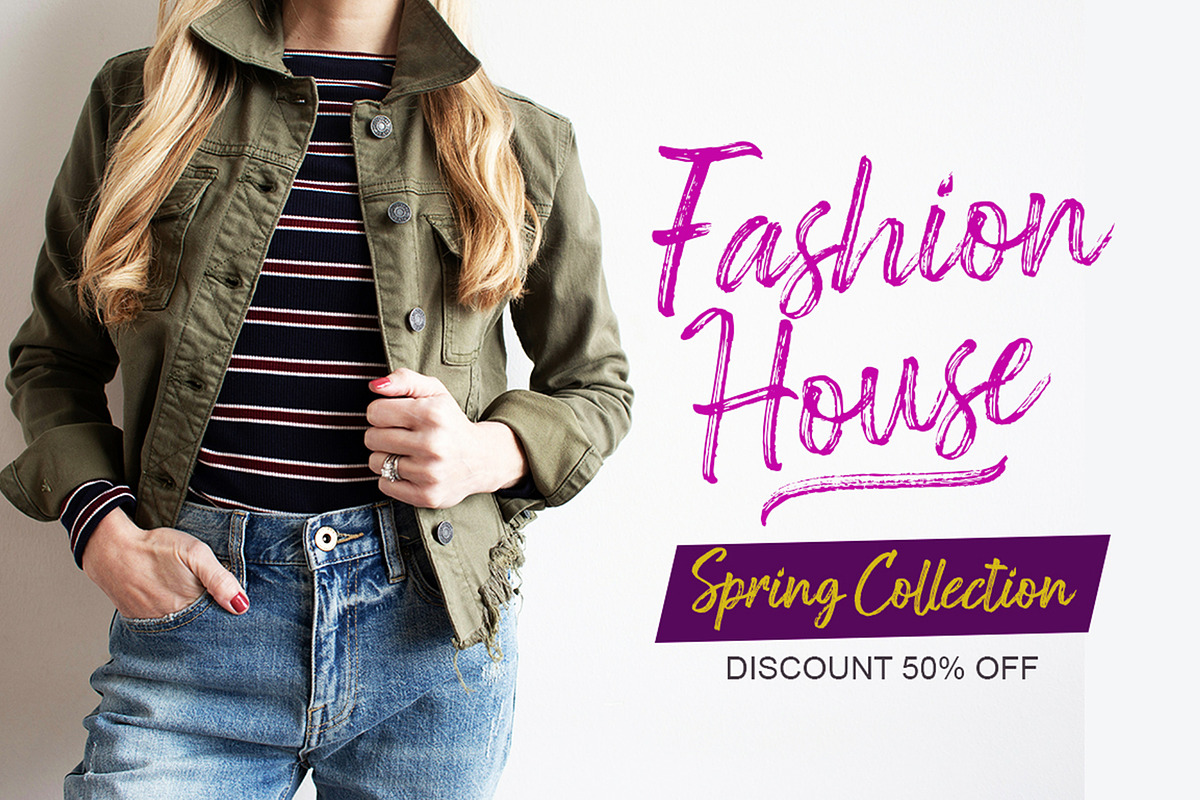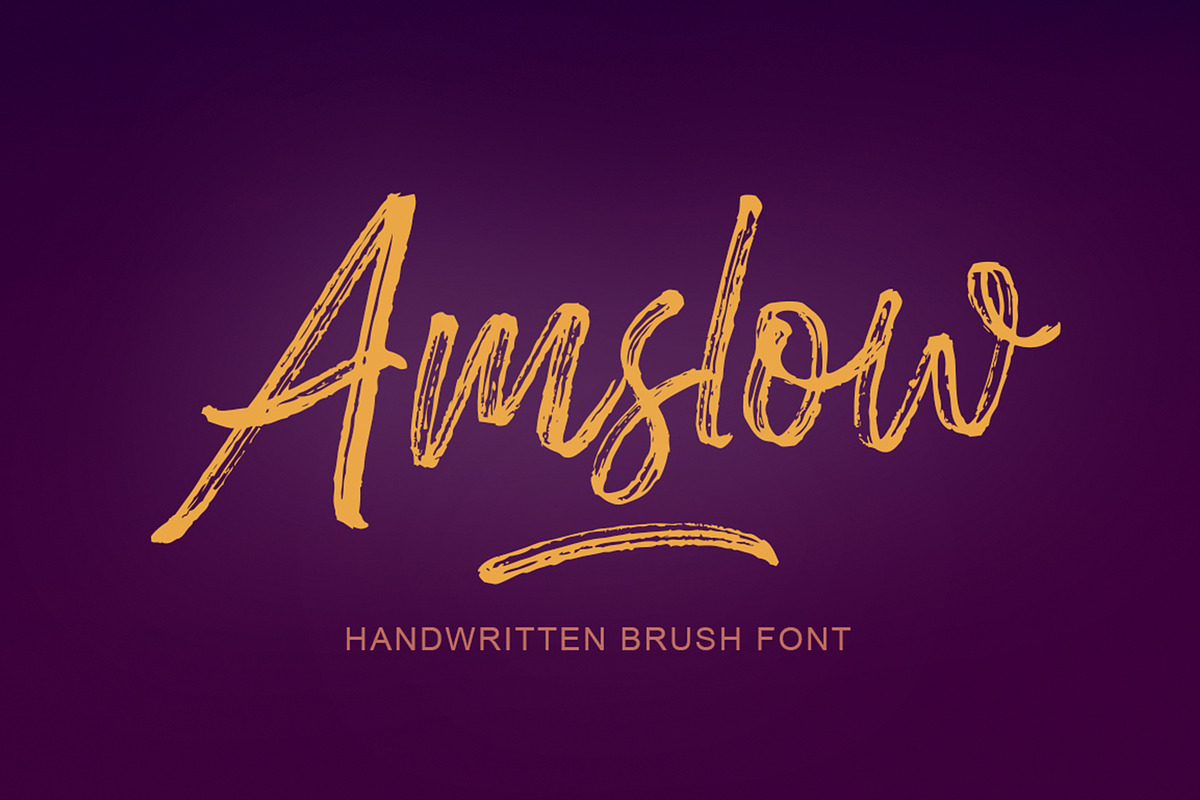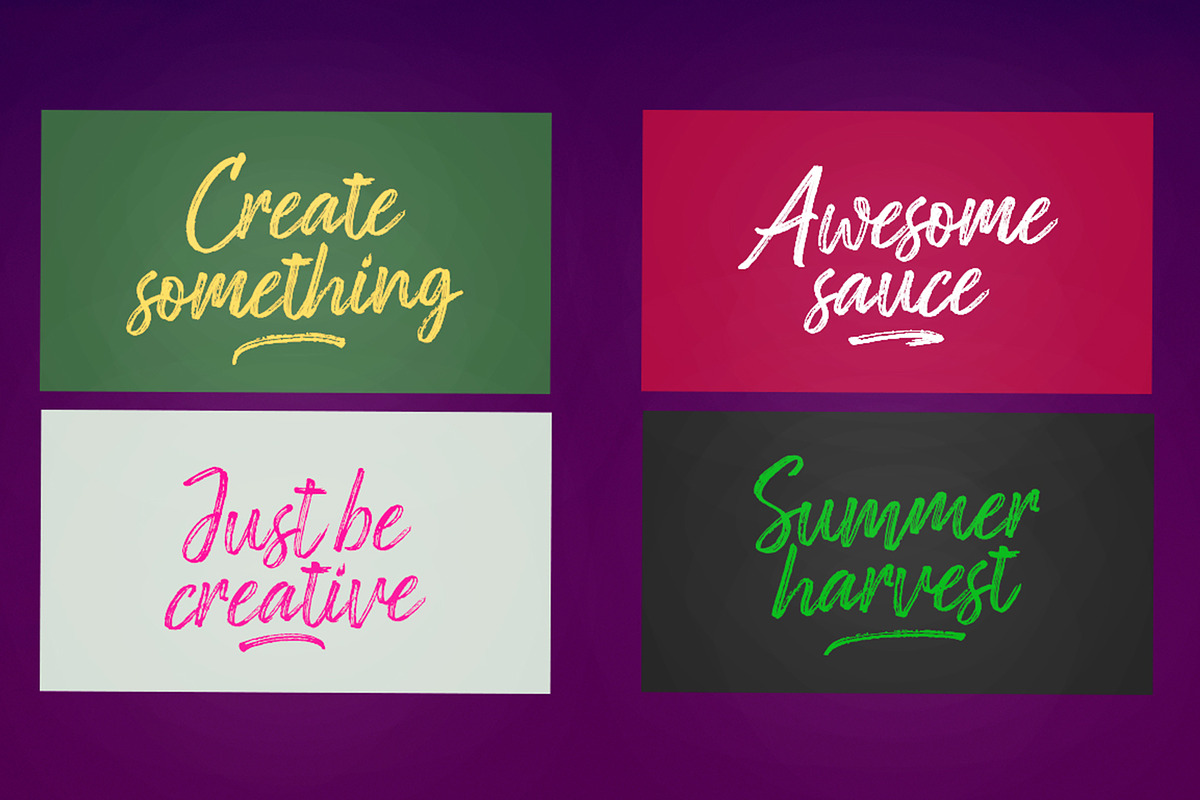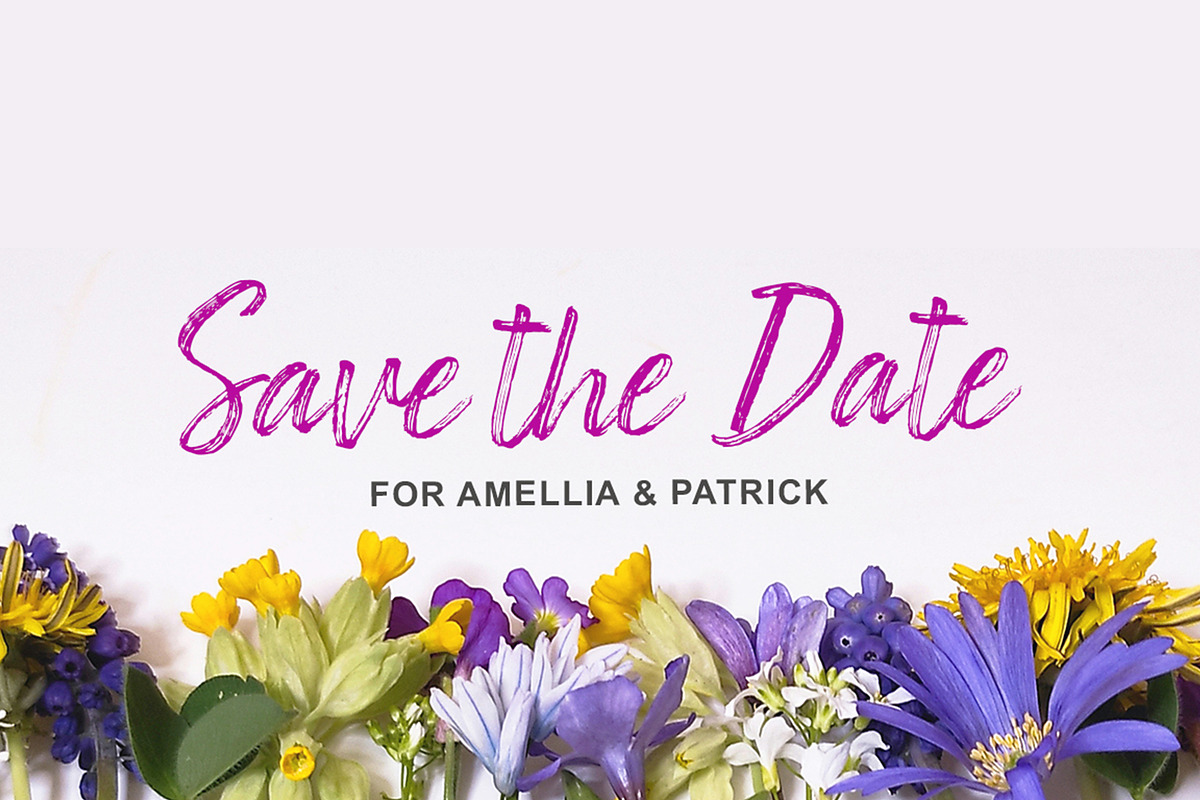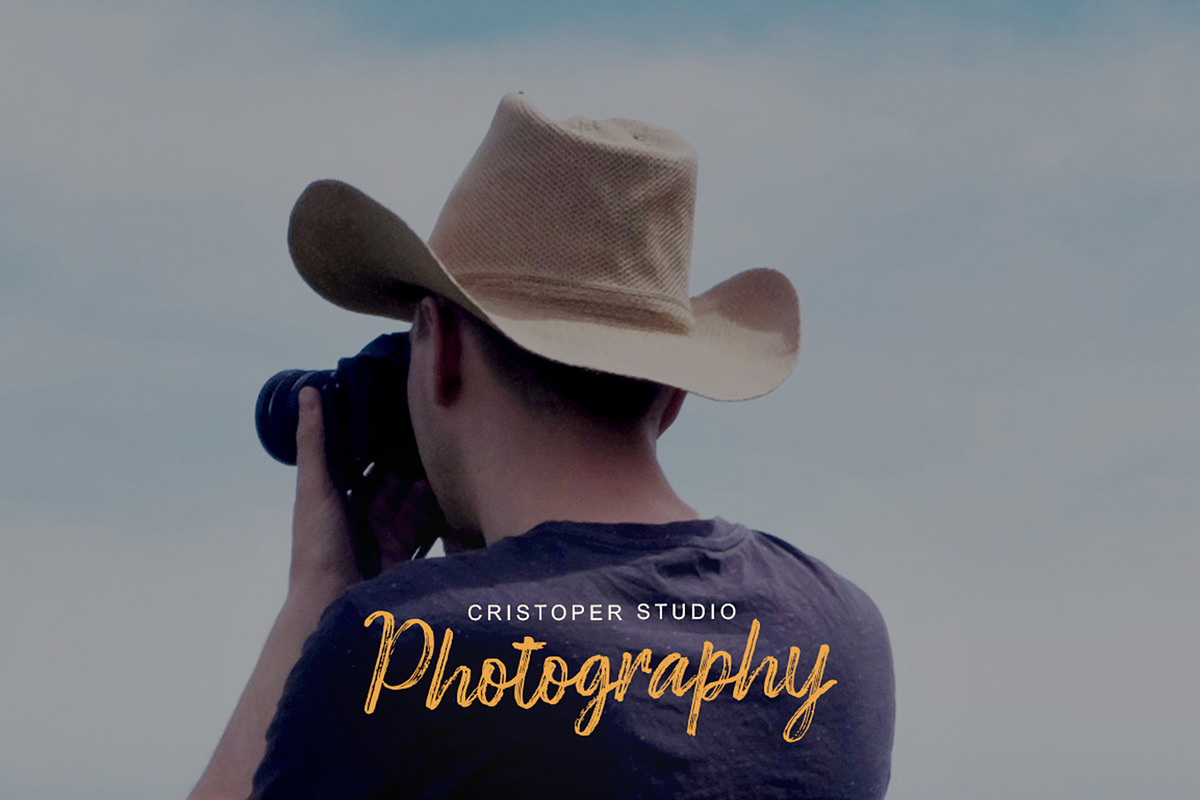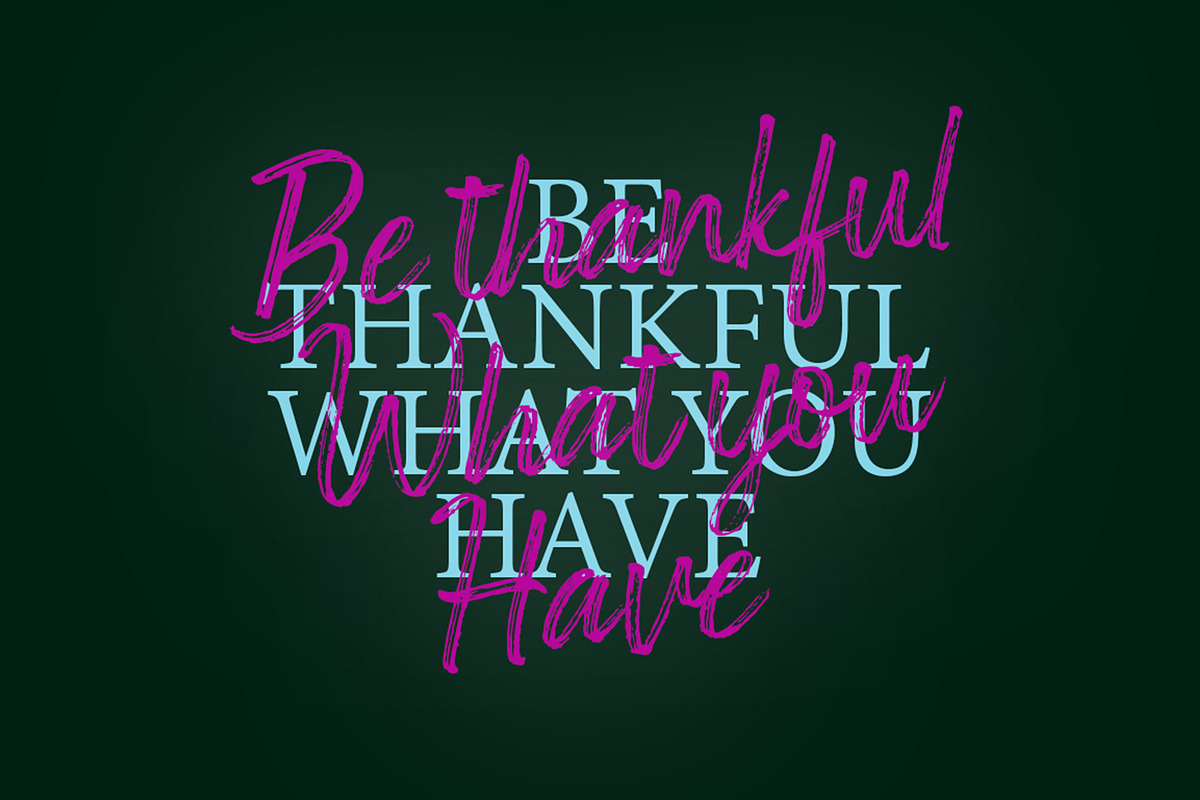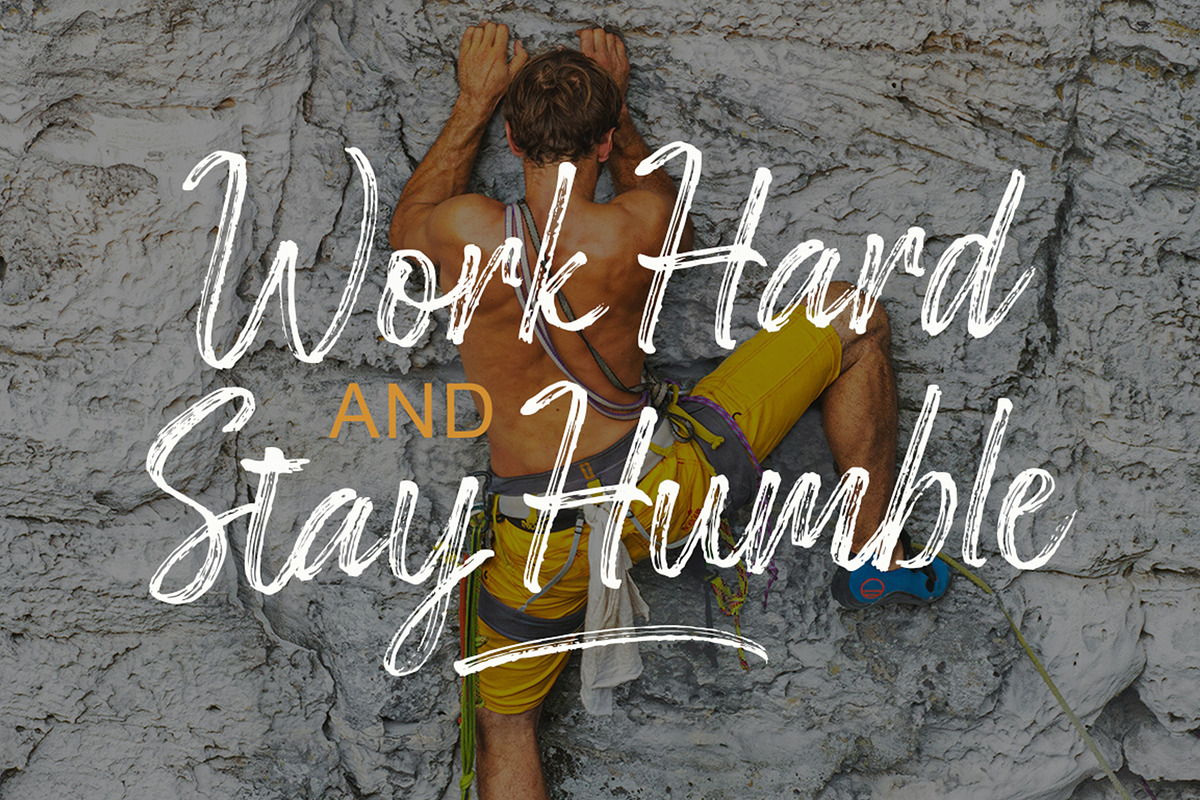
Amslow Brush
Amslow Brush is a super casual hand brushed script with detailed brush stroke texture, and a quirky, Can be used for various purposes. such as the title, signature, letterhead, signage, labels, newsletters, posters, logos, correspondence, wedding invitations, badges, etc.